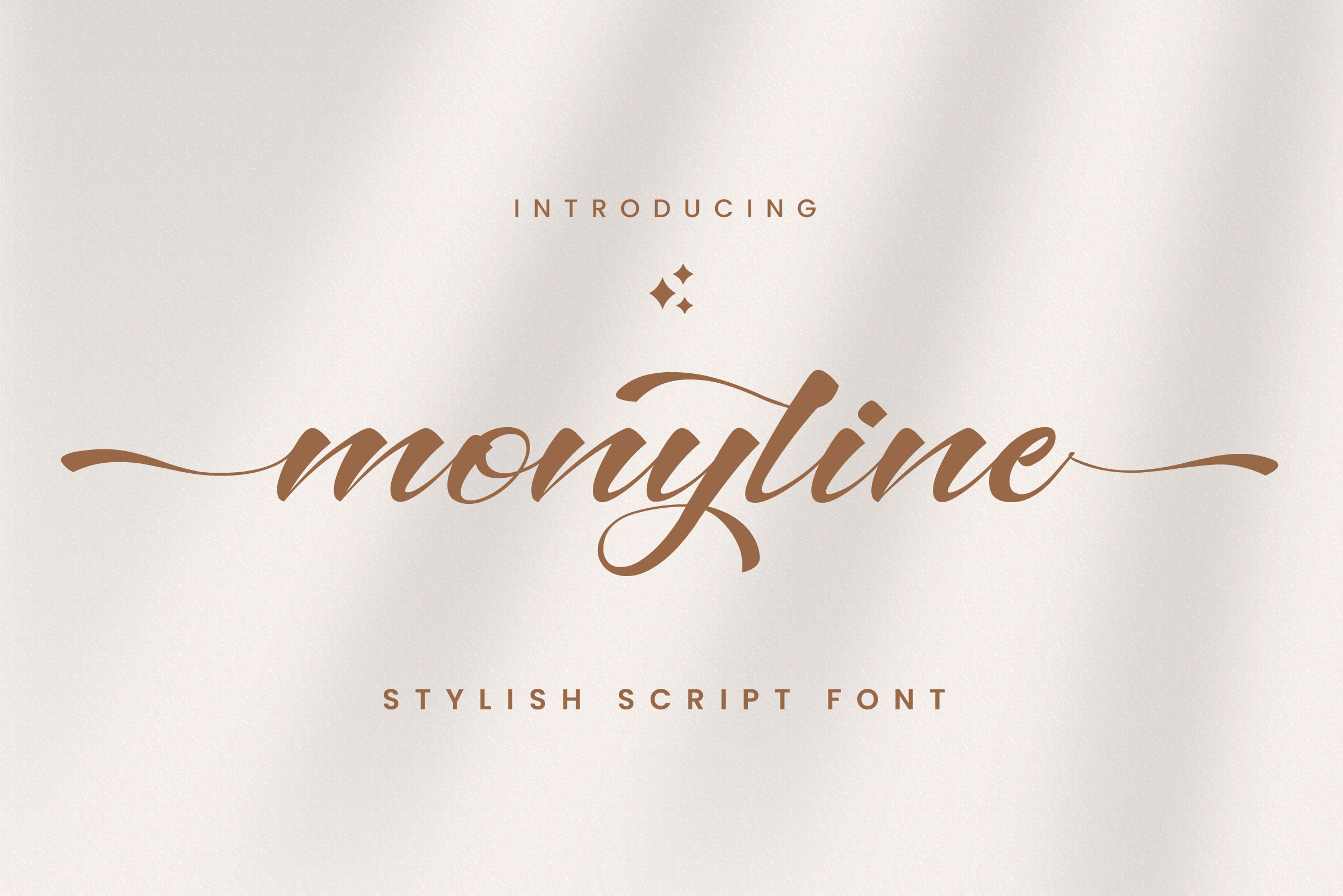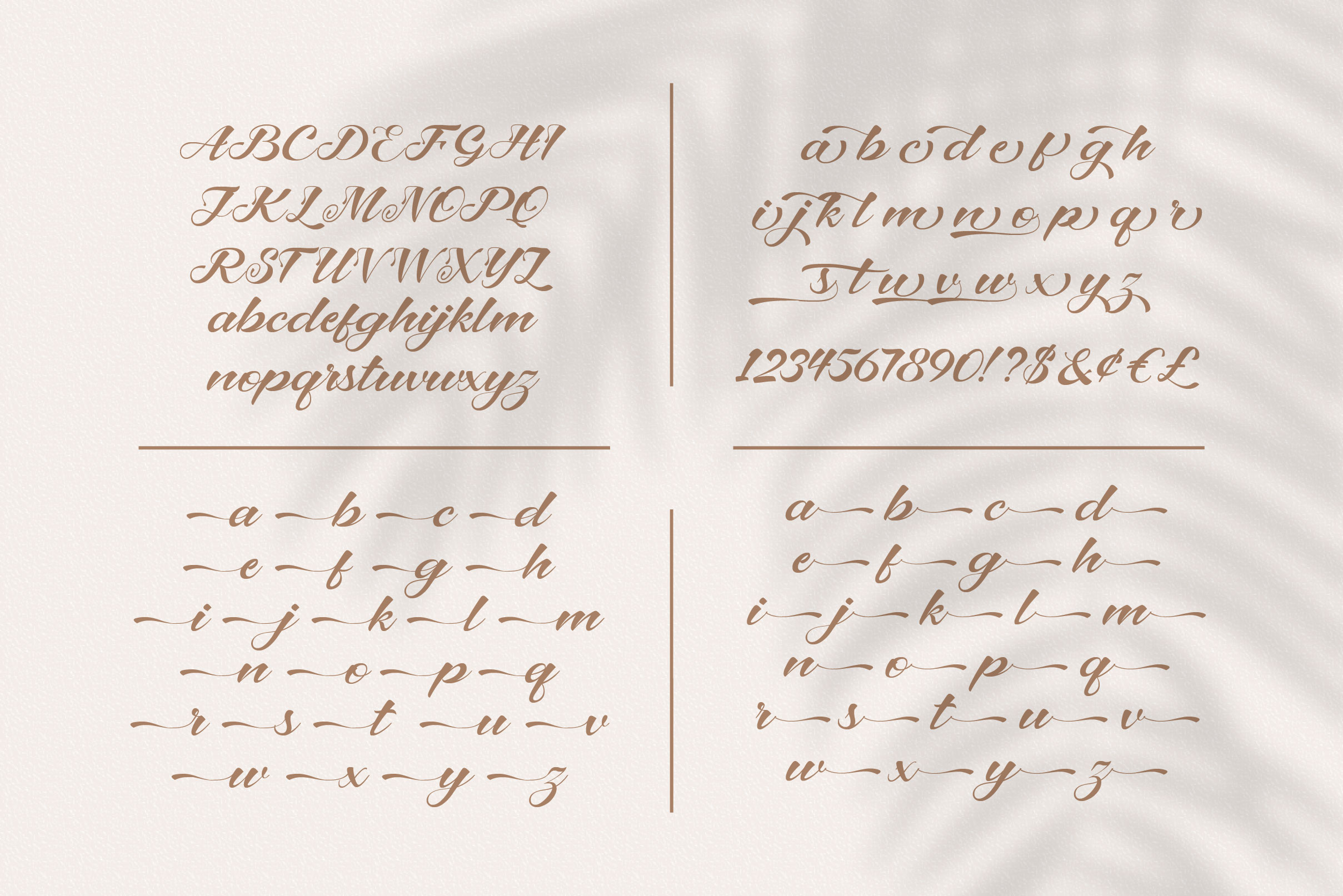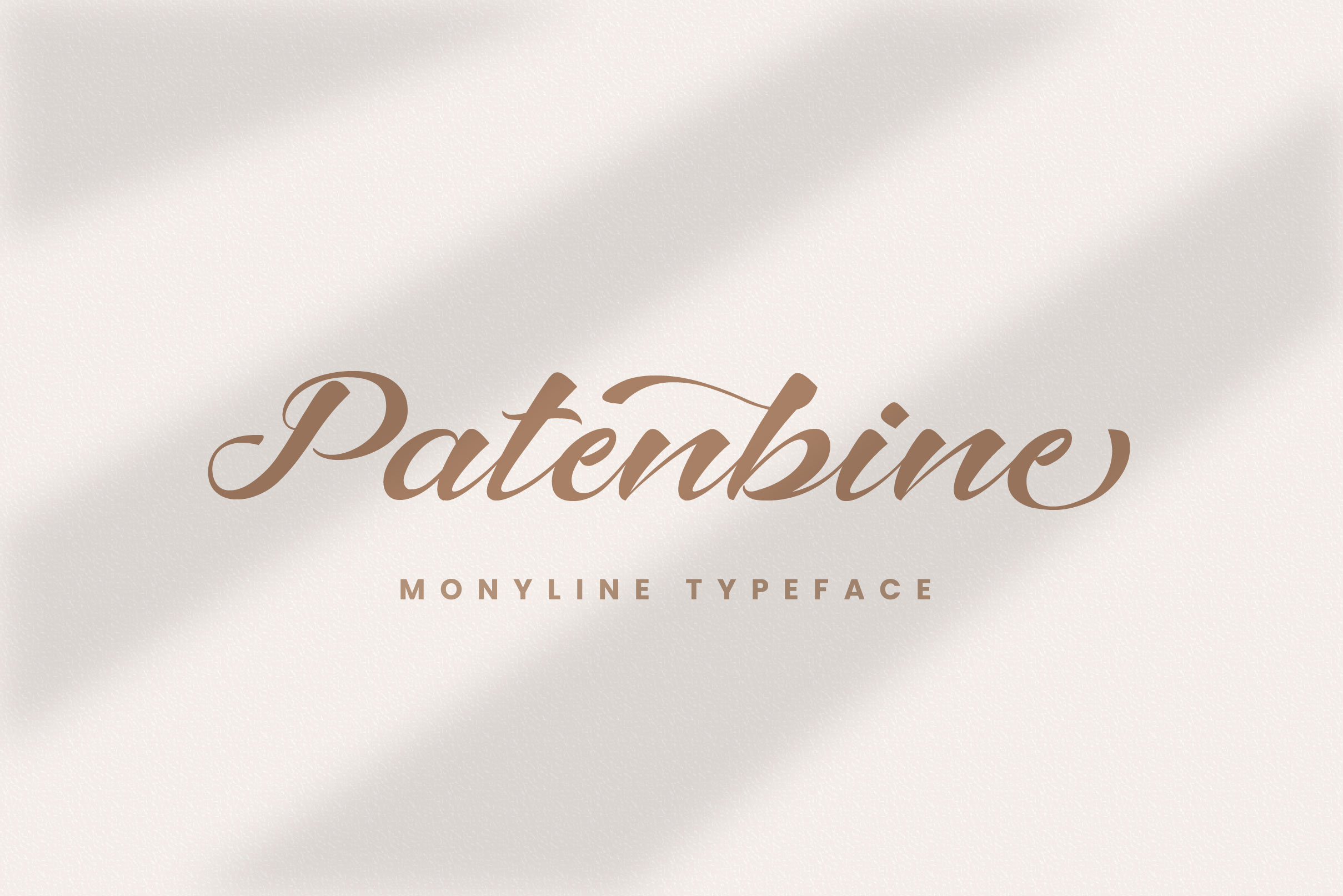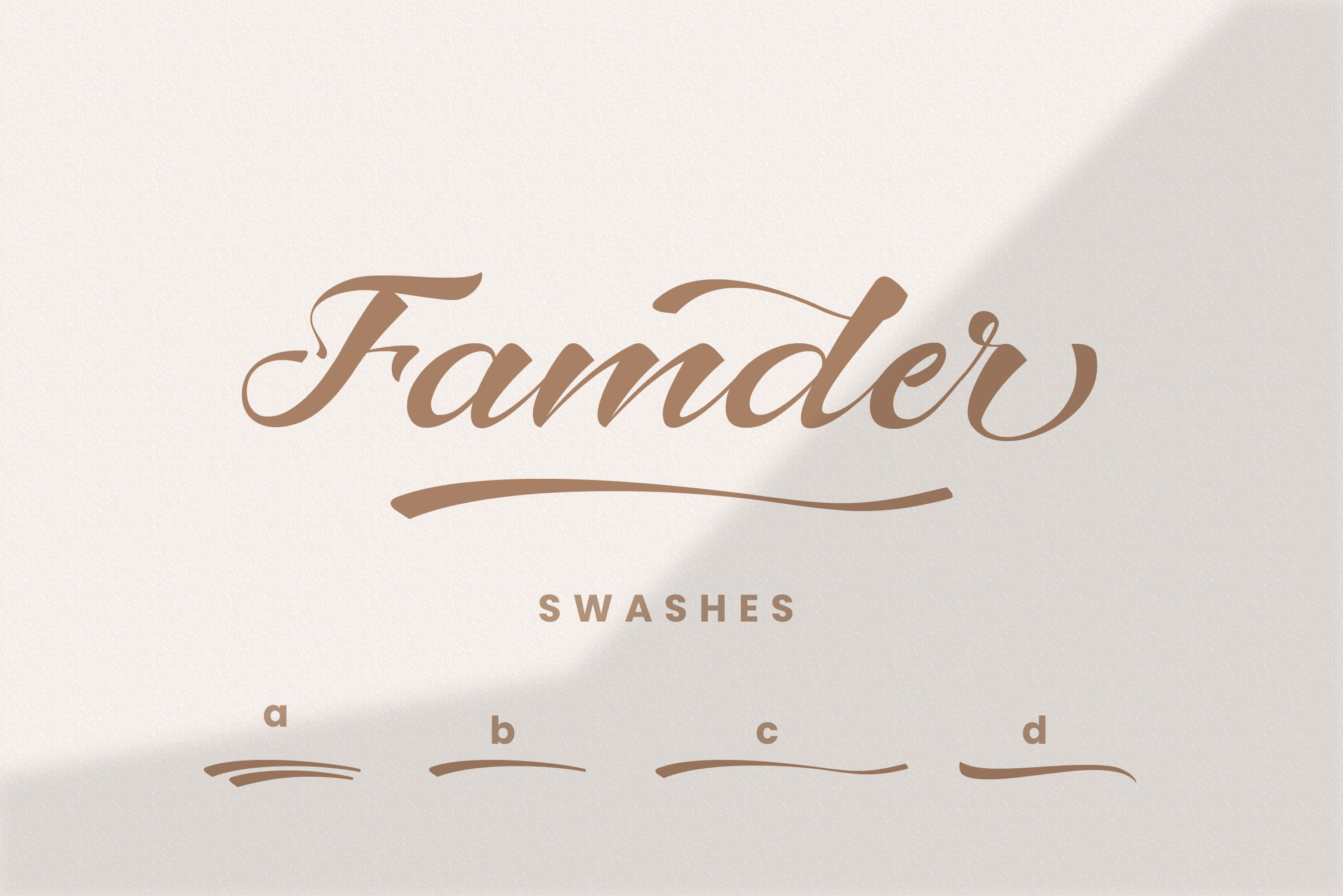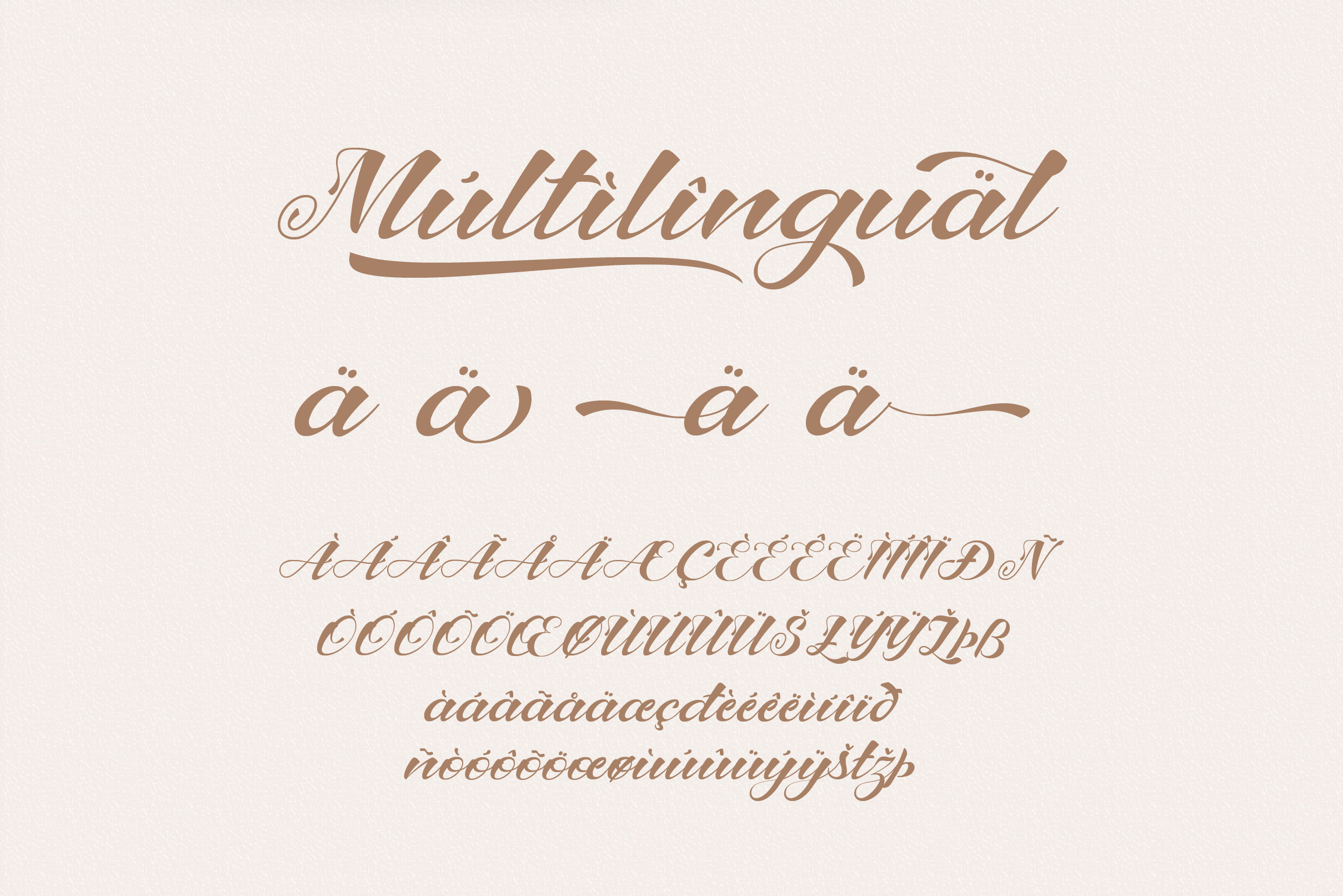
Monyline Font
Monyline Script Font is a delicate, elegant and flowing handwritten font. It has beautiful and well balanced characters and as a result, it matches a wide pool of designs. This font is PUA encoded which means you can access all of the glyphs and swashes with ease!
– Uppercase, Lowercase, Numeral & Punctuation
– Alternate Letters, Ligature & Swash/Tail
– Multilingual & PUA Encoded